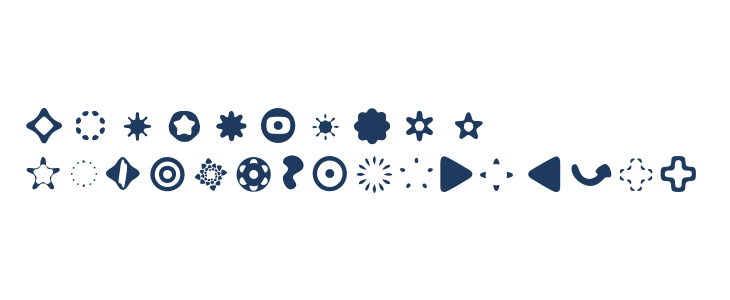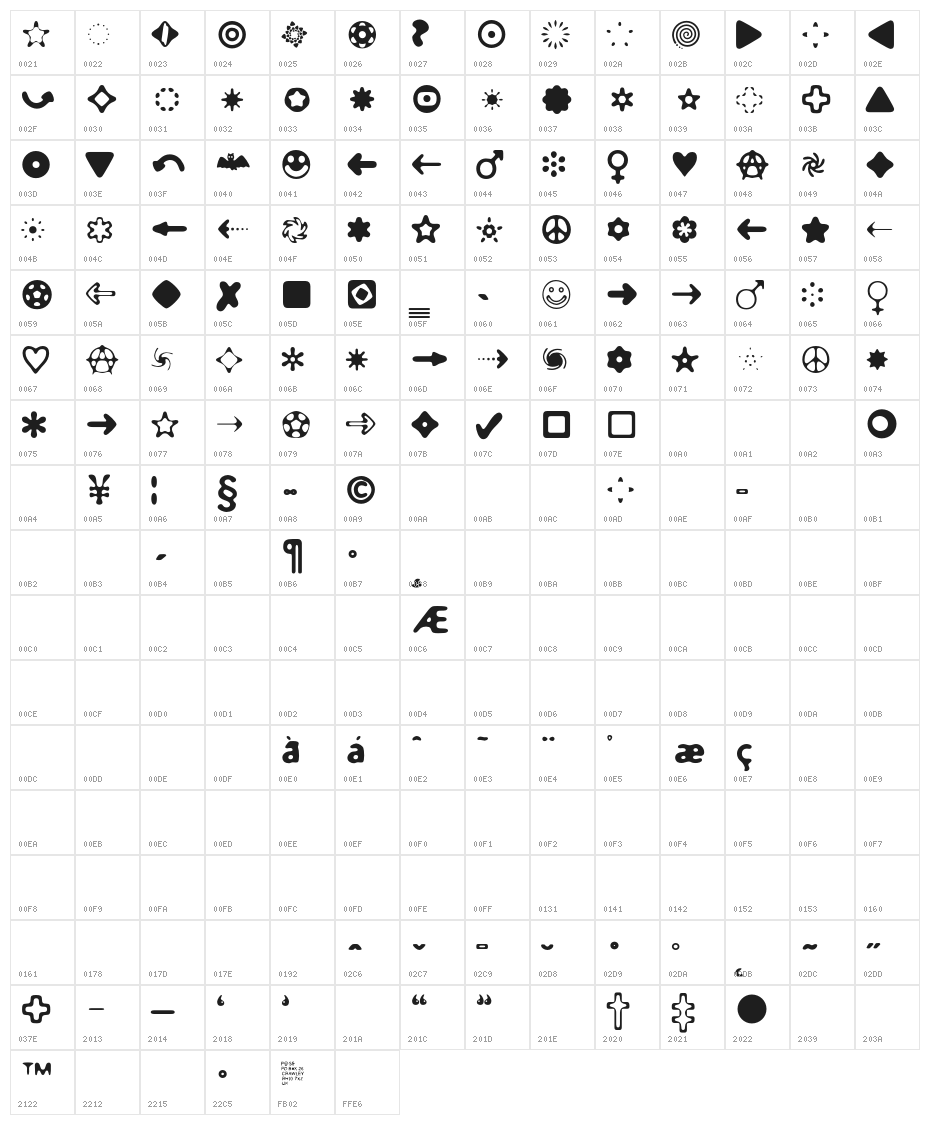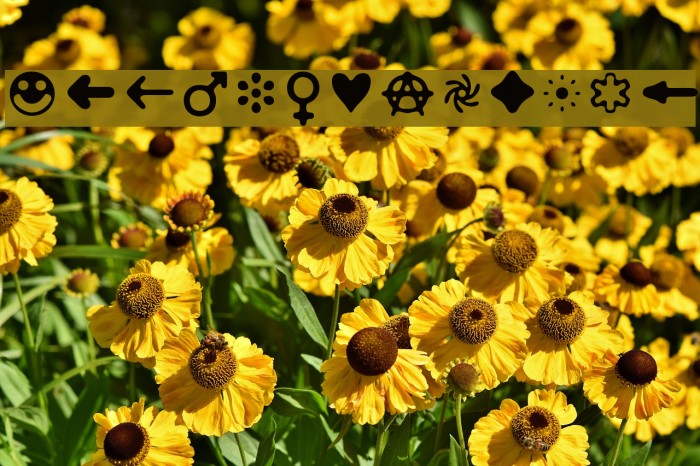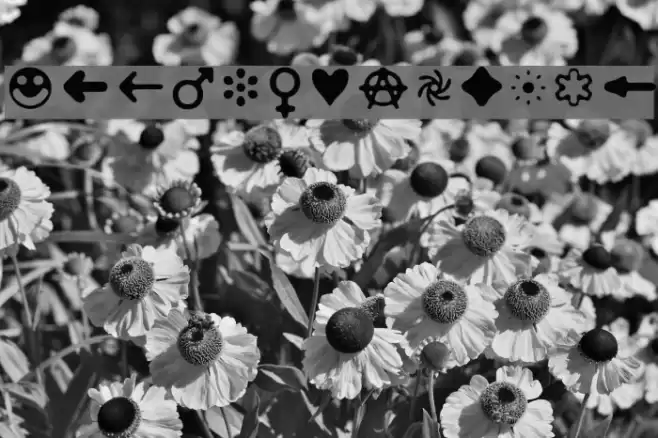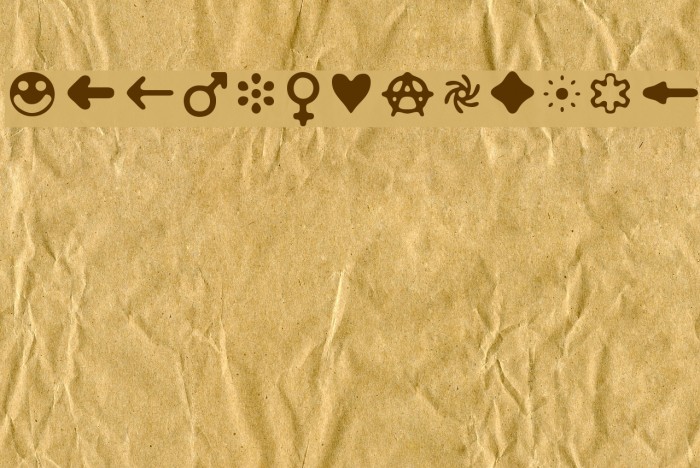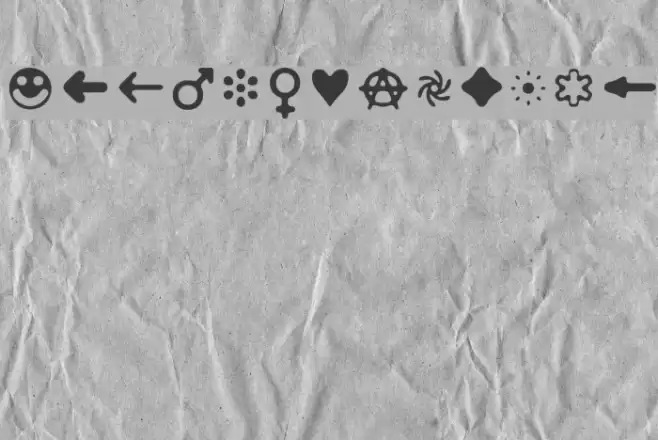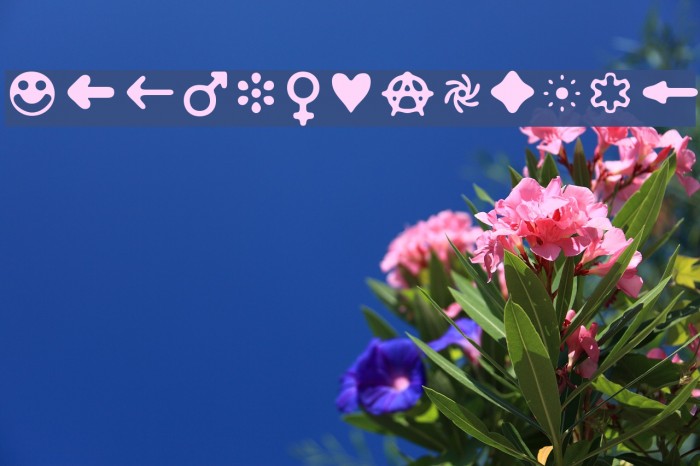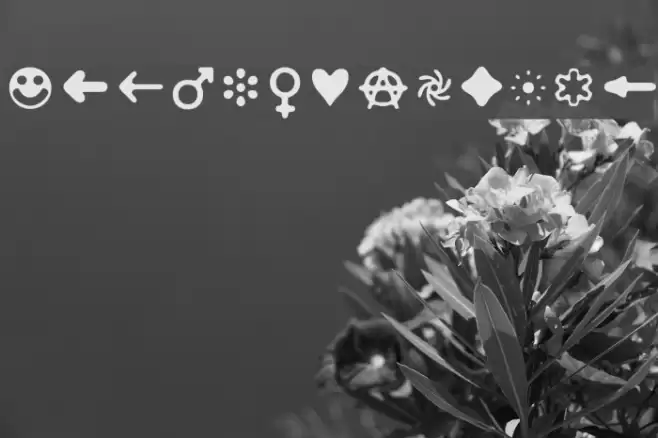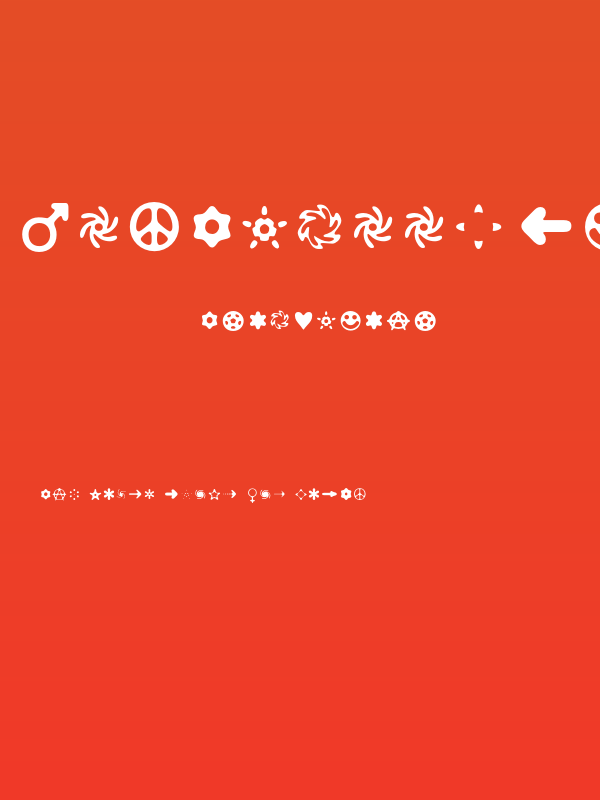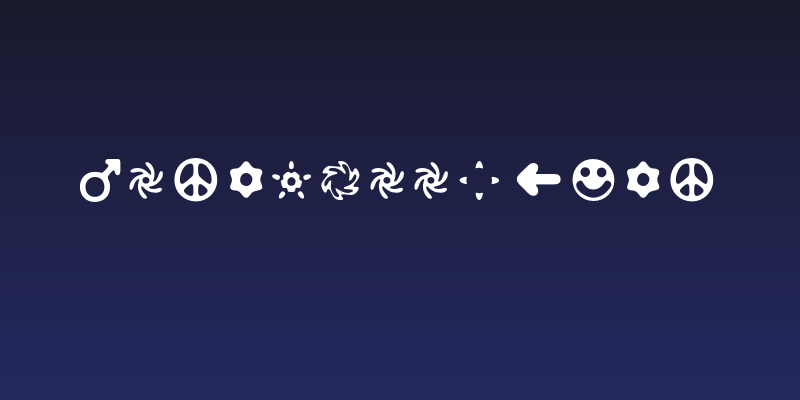
DistroII-Bats Font
DistroII-Bats Description
This collection features a diverse array of symbols and icons, each with a unique and playful design. The set includes arrows, gender symbols, hearts, peace signs, stars, and various abstract shapes. The icons are bold and clear, making them suitable for a variety of visual projects. The style is consistent across the set, with a focus on simplicity and bold outlines, ensuring each symbol is easily recognizable. The icons are versatile and can be used in both digital and print media, adding a touch of whimsy and creativity to any project.
| Use Case | Icons, Logos, Decorative elements |
| Proposed Projects | Ideal for use in graphic design projects, educational materials, user interfaces, and creative branding. |